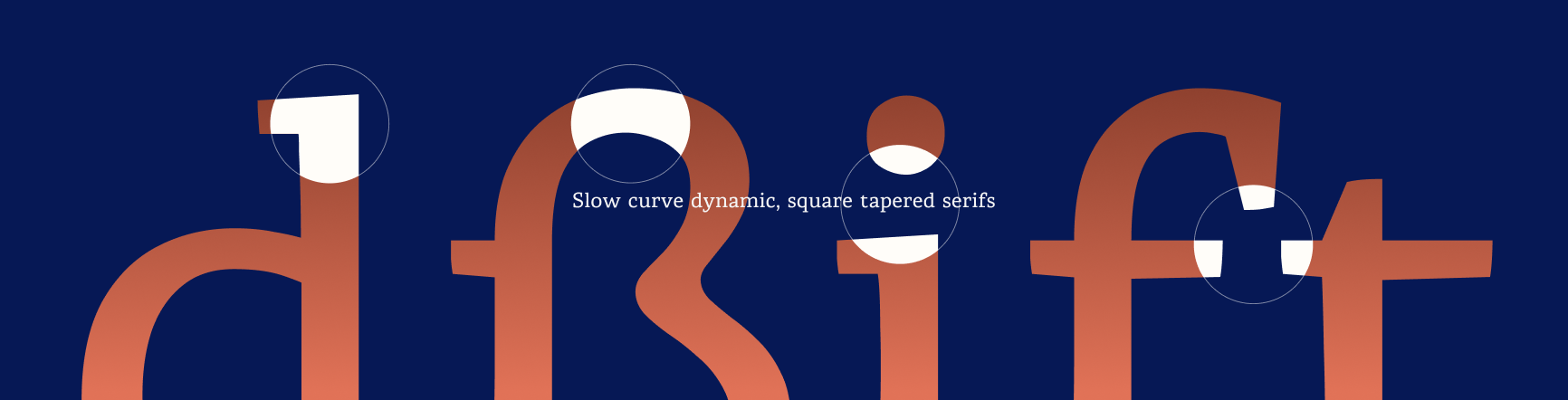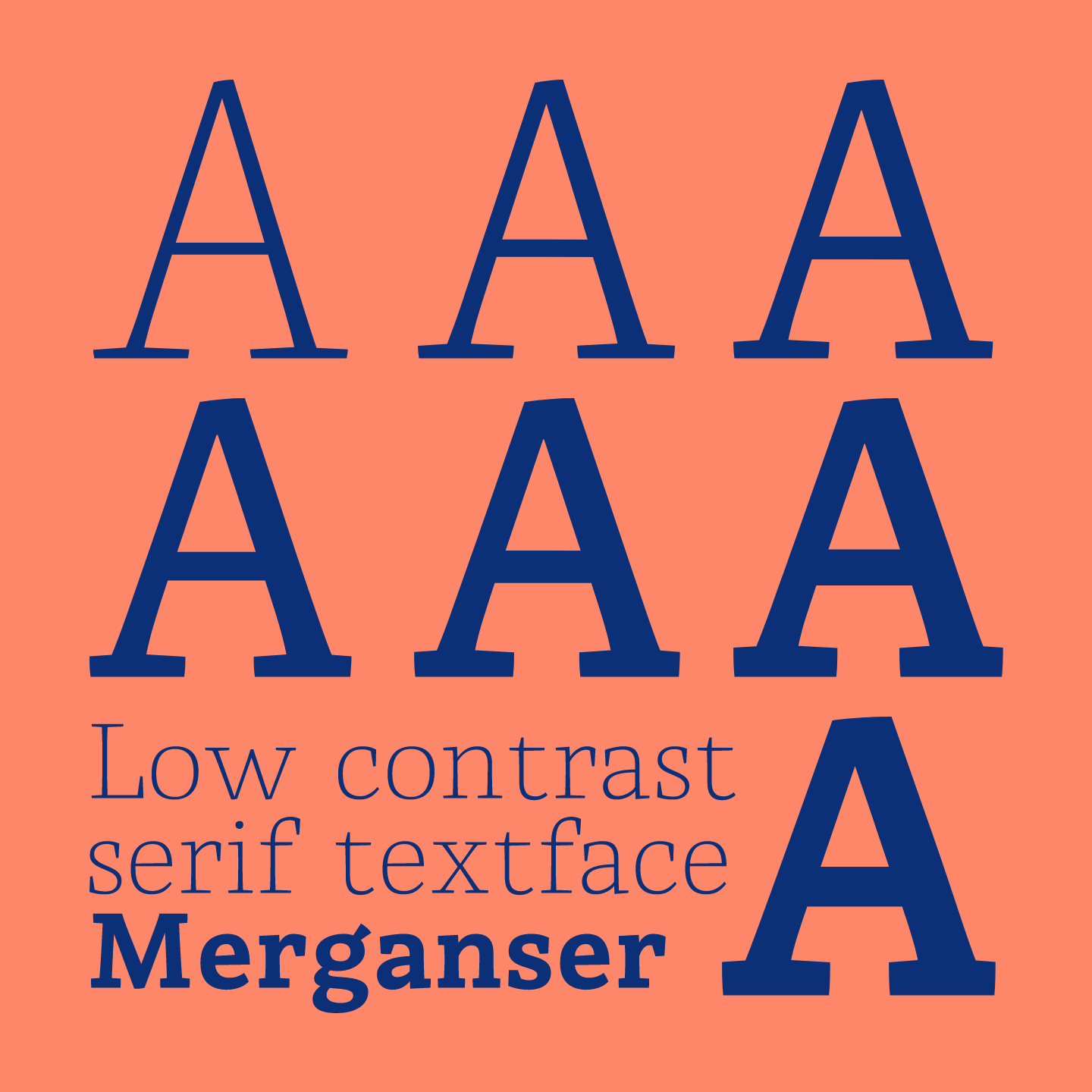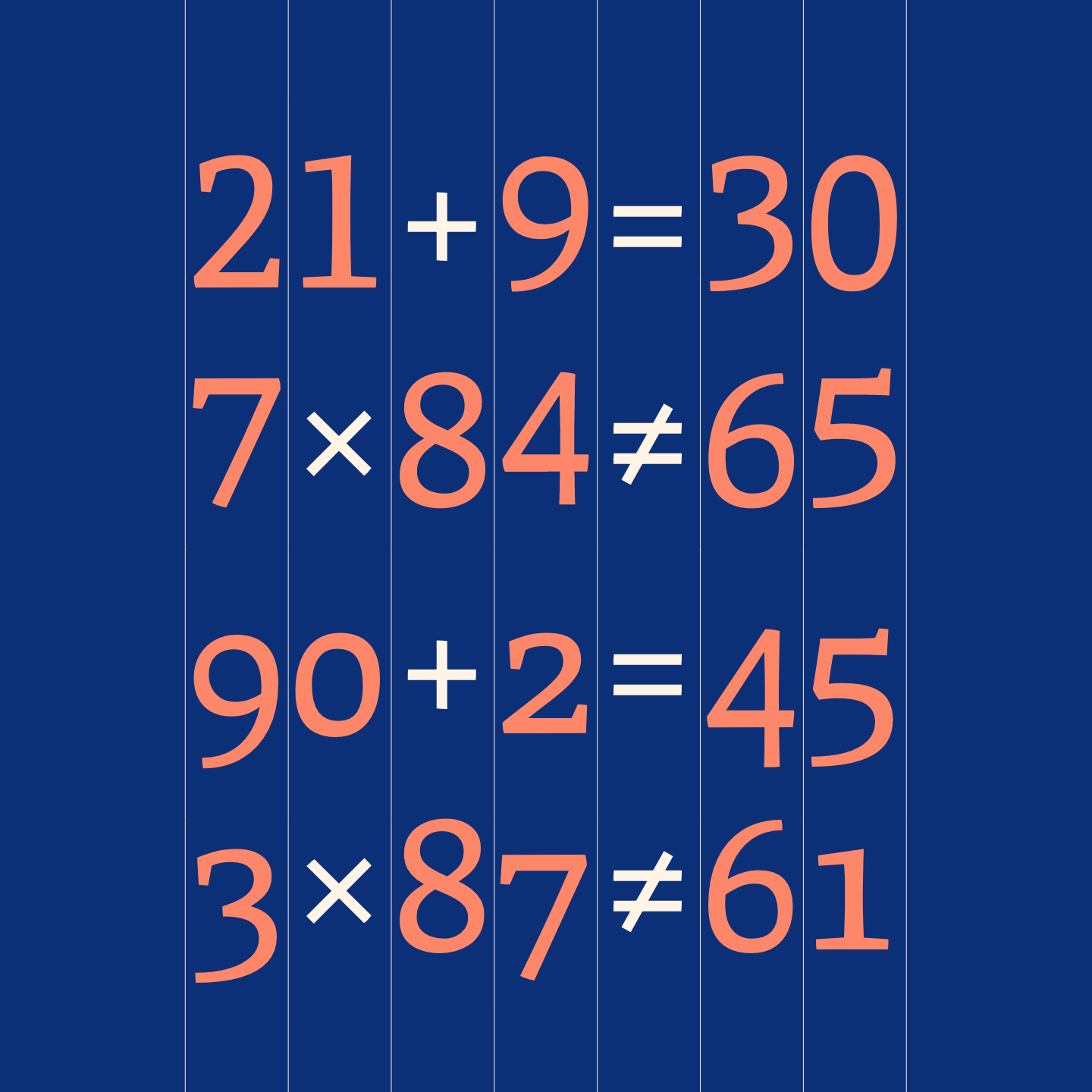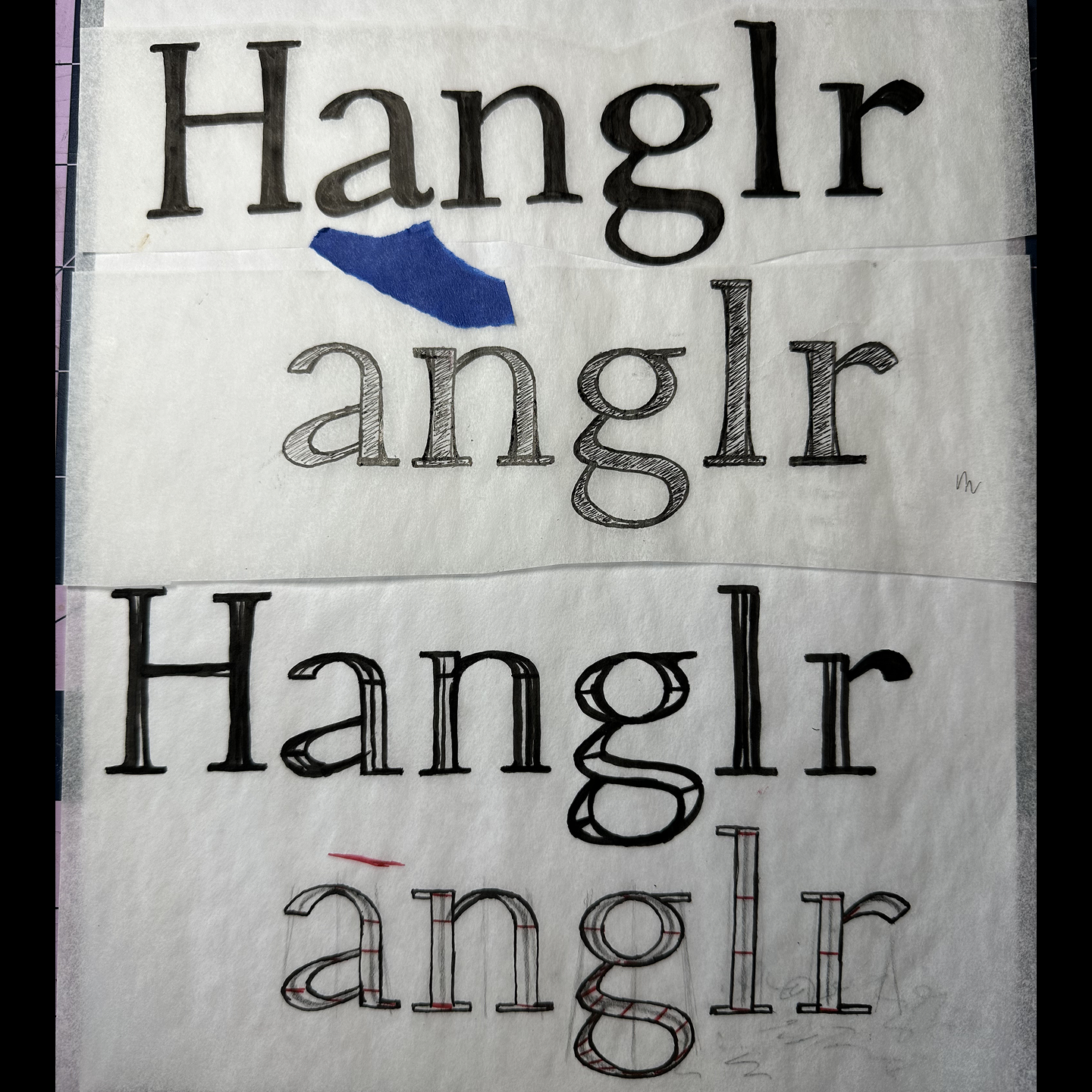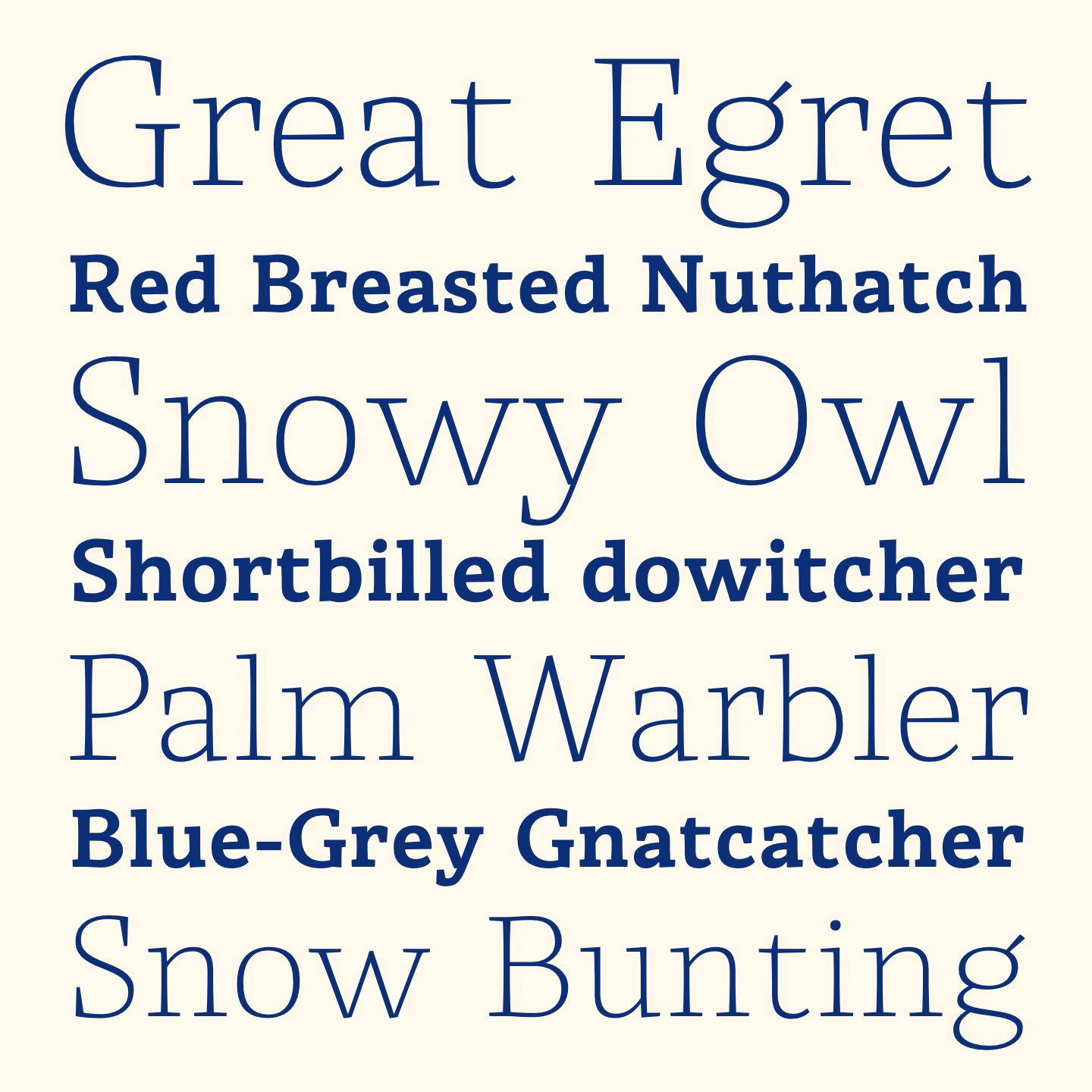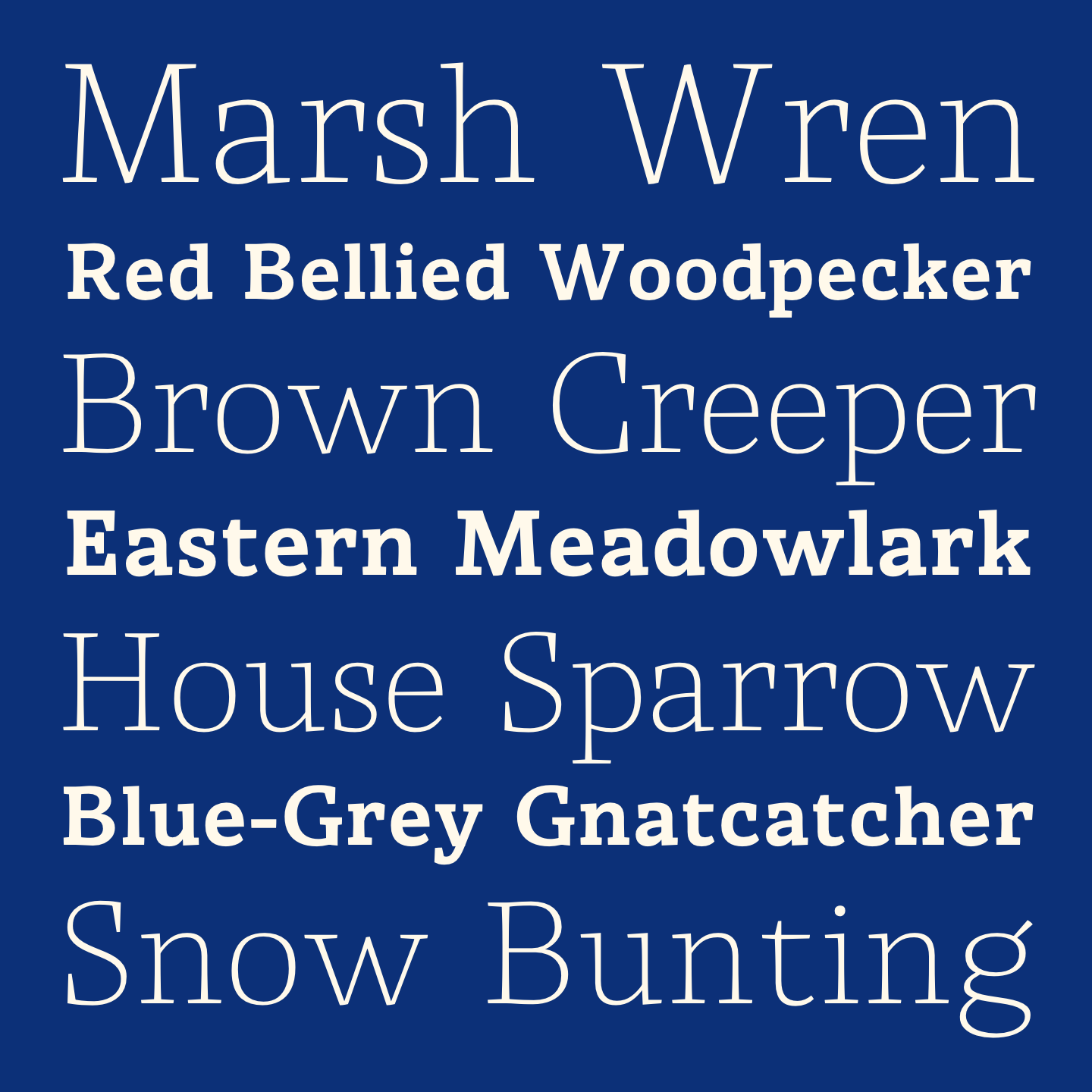
Merganser
Variable Serif Text Font
Merganser is a Typeface intended for text and copy and was inspired to serve the avid community of Birders. Birders and birding material historically have a lot to say. Merganser serves that tendency because its designed legible at small scales. The Natural world also inspires the slightly humanist strokes of Merganser.